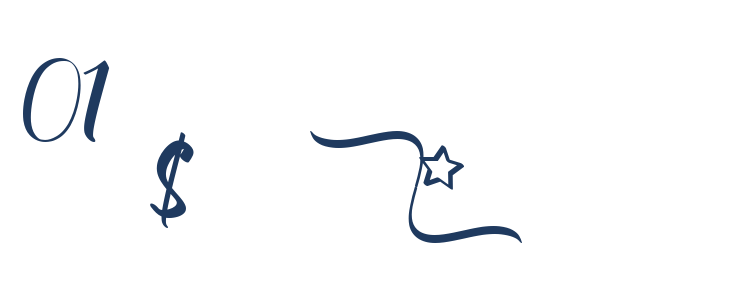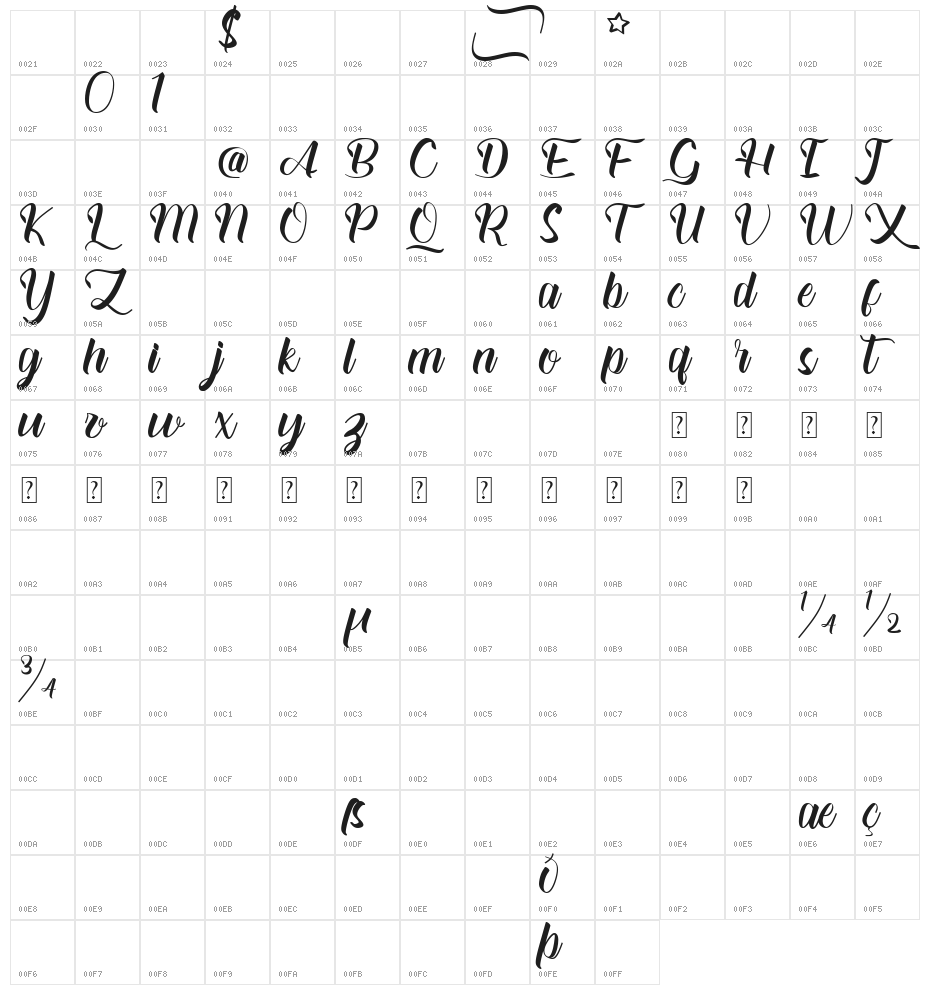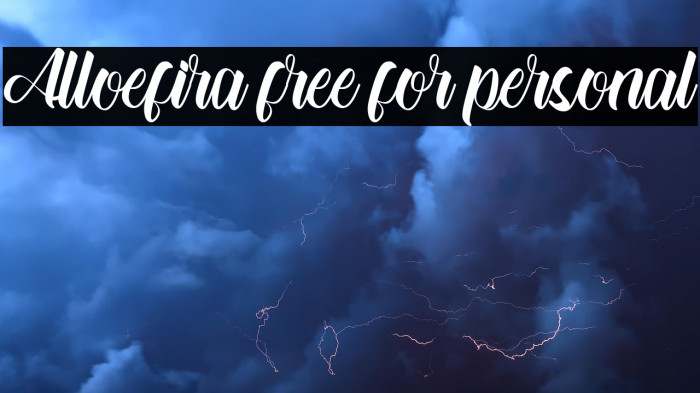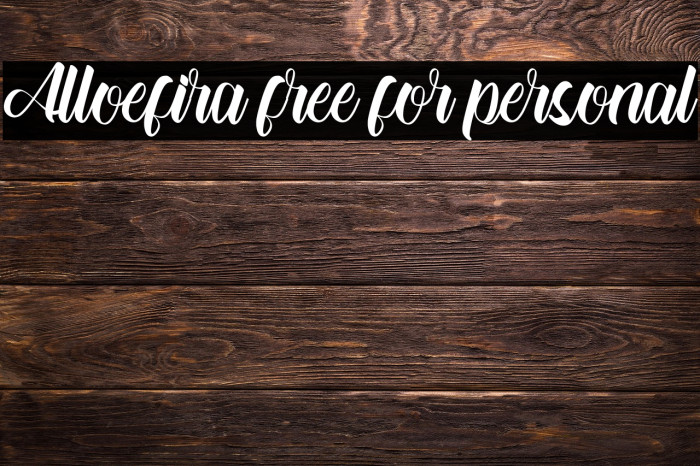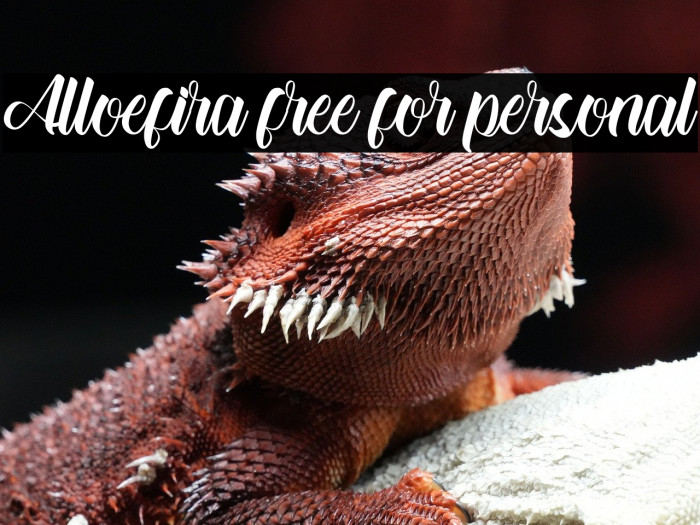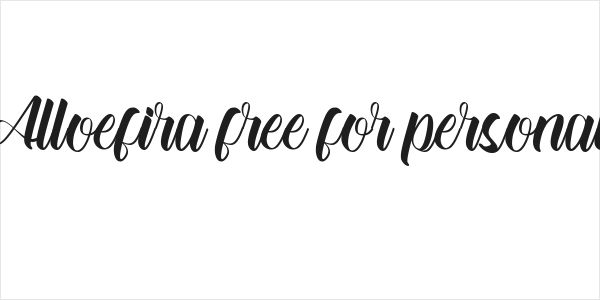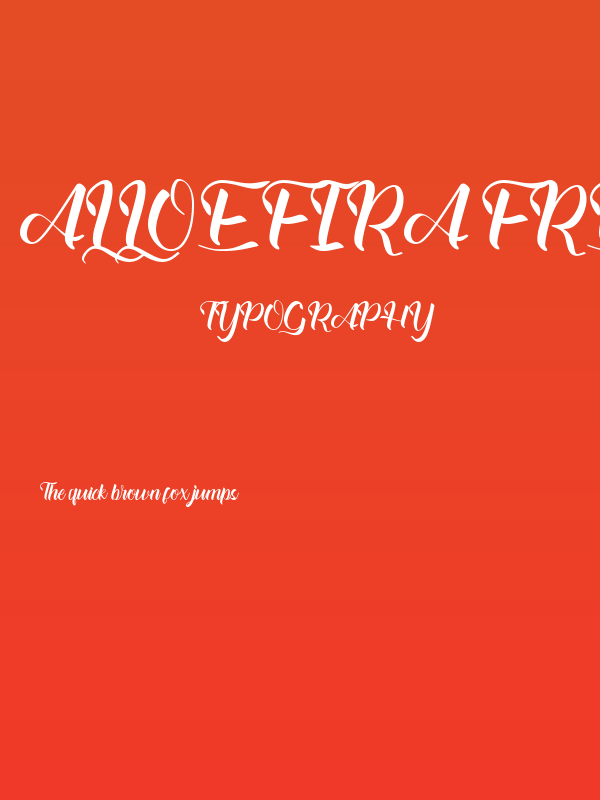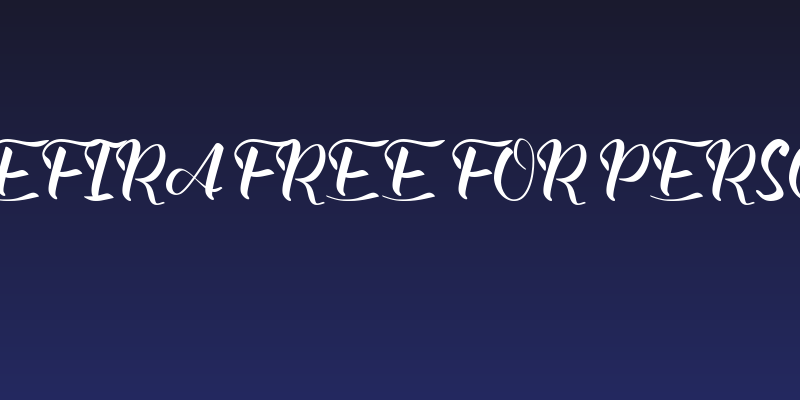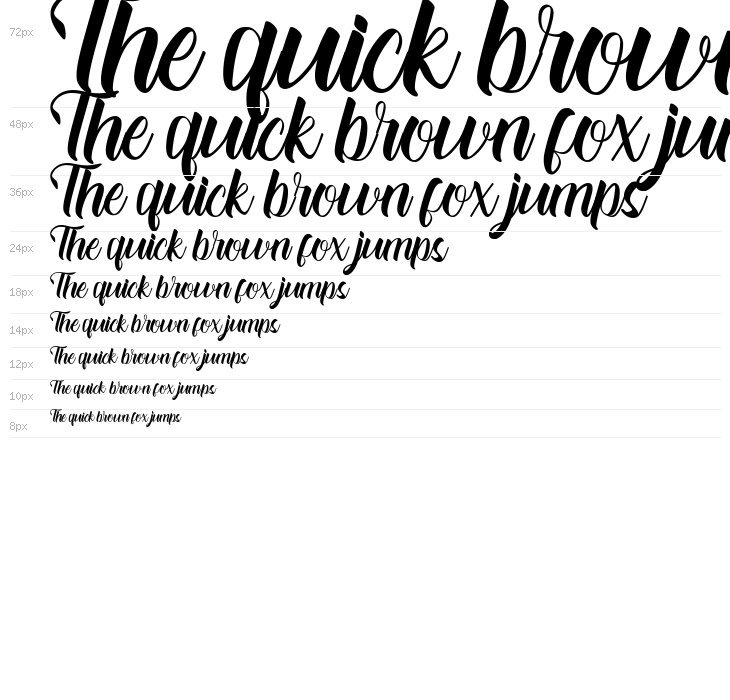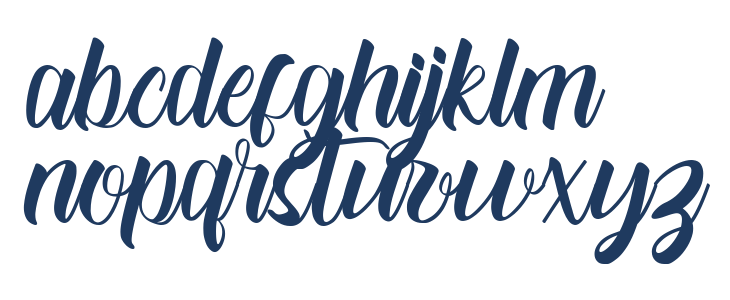
Alloefira free for personal Font
Alloefira free for personal Description
This font features a dynamic and elegant script style, characterized by fluid, sweeping strokes and a calligraphic flair. The uppercase letters exhibit a graceful flow with extended swashes, while the lowercase letters maintain a consistent rhythm and balance. The numerals and special characters are designed to complement the overall aesthetic, adding a touch of sophistication. The font's design is both expressive and versatile, making it suitable for a variety of creative applications.
| Overall Style | Elegant, Calligraphic |